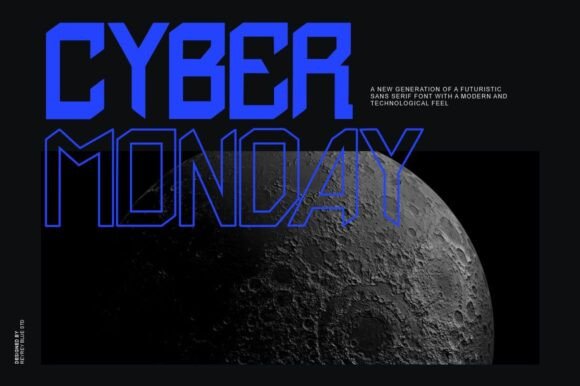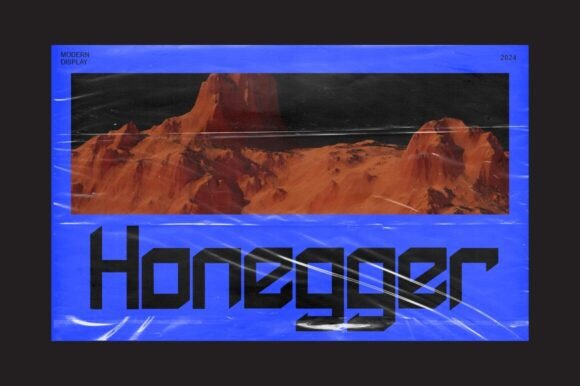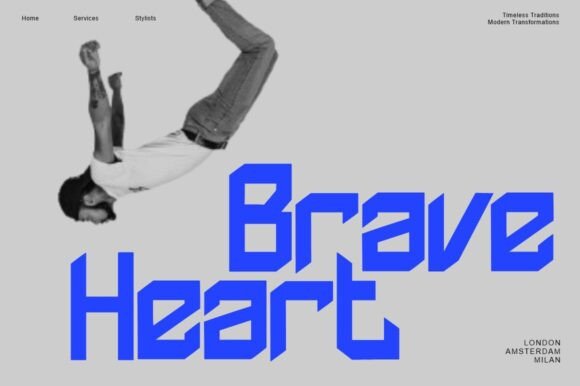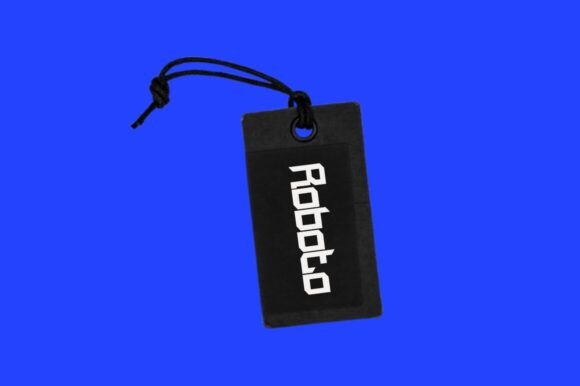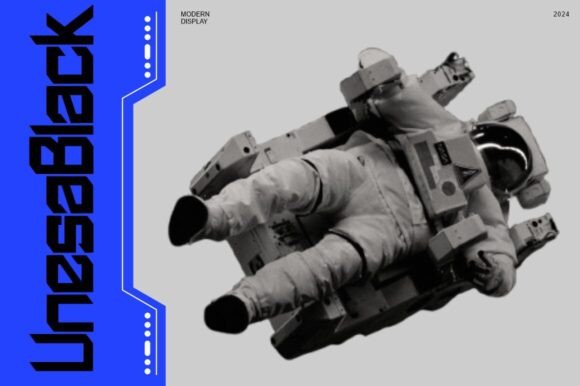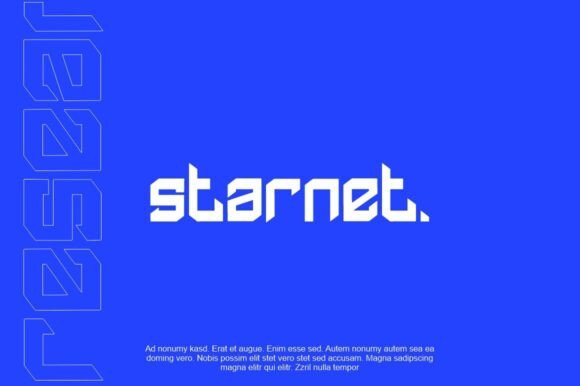
Introducing Ascharge Font: Elevate Your Designs with a Futuristic Twist
In the realm of typography, a well-crafted font can make all the difference in taking your designs to the next level. If you’re on the hunt for a typeface that exudes a modern, hi-tech vibe, look no further than Ascharge Font. This cutting-edge font is specifically designed to infuse your projects with a powerful and inspiring aesthetic, perfect for a wide range of applications.
The Essence of Ascharge Font
Ascharge Font is a modern typeface that embodies a futuristic atmosphere, making it an ideal choice for projects that require a sleek and sophisticated look. Its design is characterized by clean lines, precise curves, and a sense of dynamism that screams innovation. Whether you’re working on a technology-related project, a digital platform, or a space galaxy-themed endeavor, Ascharge Font is the perfect companion to help you convey your message with style and impact.
Endless Possibilities with Ascharge Font
The versatility of Ascharge Font is one of its standout features. This typeface is not limited to a specific industry or medium; instead, it can be applied to a wide range of projects, including:
- Movies and Documentaries: Add a touch of futurism to your film titles, subtitles, or opening credits with Ascharge Font.
- Logos and Branding: Create a lasting impression with a logo that incorporates Ascharge Font, perfect for tech startups, digital agencies, or space-related businesses.
- Posters and Flyers: Make your promotional materials stand out with a bold and eye-catching typeface that demands attention.
- Games and Interactive Media: Enhance the user experience with a font that resonates with a sense of innovation and cutting-edge technology.
- Book Covers and Magazines: Give your publication a professional and modern look that sets it apart from the competition.
Why Choose Ascharge Font?
With so many typefaces available, what sets Ascharge Font apart? Here are just a few reasons why designers and crafters are gravitating towards this exceptional font:
- Unique and Memorable: Ascharge Font boasts a distinctive design that will leave a lasting impression on your audience.
- Highly Versatile: From digital platforms to print materials, Ascharge Font adapts seamlessly to various mediums and applications.
- Easy to Read: Despite its futuristic aesthetic, Ascharge Font remains clear and legible, ensuring your message is conveyed effectively.
- Customizable: Experiment with different sizes, colors, and styles to tailor Ascharge Font to your specific design needs.
Tips for Using Ascharge Font Effectively
To get the most out of Ascharge Font, consider the following best practices:
- Pair with Complementary Fonts: Combine Ascharge Font with other typefaces to create a harmonious and visually appealing design.
- Balance Bold and Light: Experiment with different weights and styles to achieve a balanced look that guides the viewer’s eye.
- Consider Contrast: Ensure sufficient contrast between Ascharge Font and your background to maintain readability and visual hierarchy.
In conclusion, Ascharge Font is a game-changing typeface that can elevate your designs and take them to new heights. Its futuristic aesthetic, versatility, and readability make it an excellent choice for designers and crafters seeking to create stunning visual content. Whether you’re working on a technology-related project or simply want to add a touch of innovation to your designs, Ascharge Font is the perfect addition to your creative toolkit.